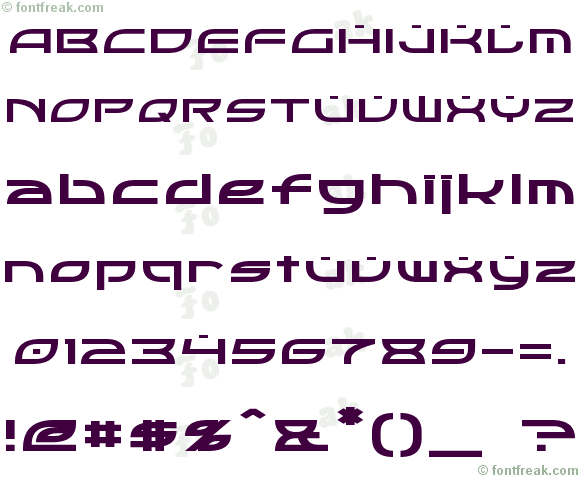
OpTic
About OpTic
The OpTic font, designed by Neale Davidson in 2011, is a striking display typeface that captures attention with its contemporary flair. As a sans-serif font, OpTic boasts clean lines and geometric precision, making it an excellent choice for a variety of design projects. Its moderate stroke weight and well-balanced contrast contribute to a modern aesthetic that is both versatile and visually appealing. The letterforms feature a unique arrangement that balances spacing effectively, allowing for easy readability while maintaining an engaging visual rhythm.
This font is particularly well-suited for use cases such as advertising campaigns, where bold statements are essential. It can enhance movie posters by providing a sleek title that demands attention and conveys a sense of innovation. OpTic is also perfect for restaurant menus, giving a contemporary feel that aligns with modern dining experiences. Additionally, its distinctive style makes it an ideal choice for branding projects aimed at young, dynamic businesses looking to establish a memorable identity. Graphic designers and content creators will find this font invaluable for creating eye-catching digital and print materials.
What sets OpTic apart is its ability to blend modern aesthetics with functional design, making it a remarkable choice for anyone looking to leave a lasting impression. Its unique characteristics and diverse applications ensure that it stands out in a crowded font landscape, inviting creativity and innovation in every project.